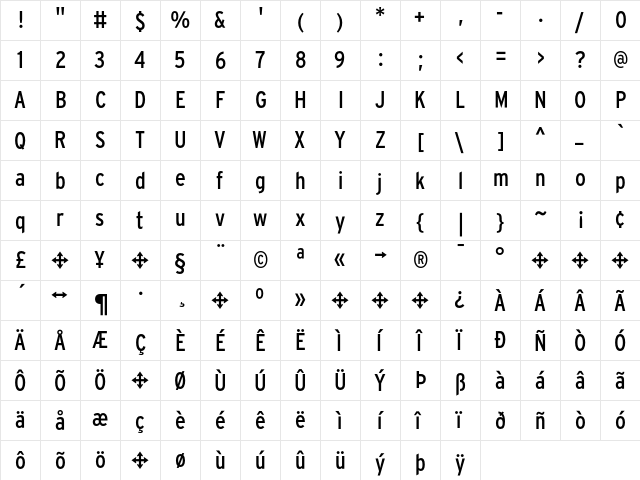
Interstate RegularCondensed
Design Context for Interstate Typeface
Interstate offers clean, dependable letterforms without strong stylistic allegiance, making it a practical choice for designers who need flexibility. The condensed width makes it efficient for tight spaces without sacrificing legibility.
Pro Tip: Pair Interstate with a font of contrasting weight or personality to build a more expressive typographic hierarchy.